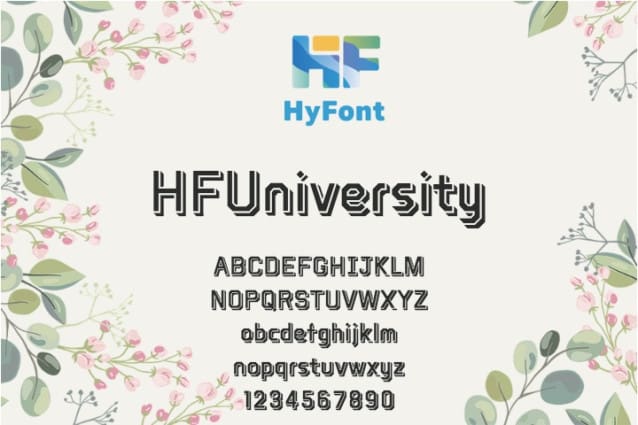
HF University Font
HF University Font, This bundle features strong, confident and powerful typefaces designed to work great with sports logos, club branding, apparel applications, labels and more.